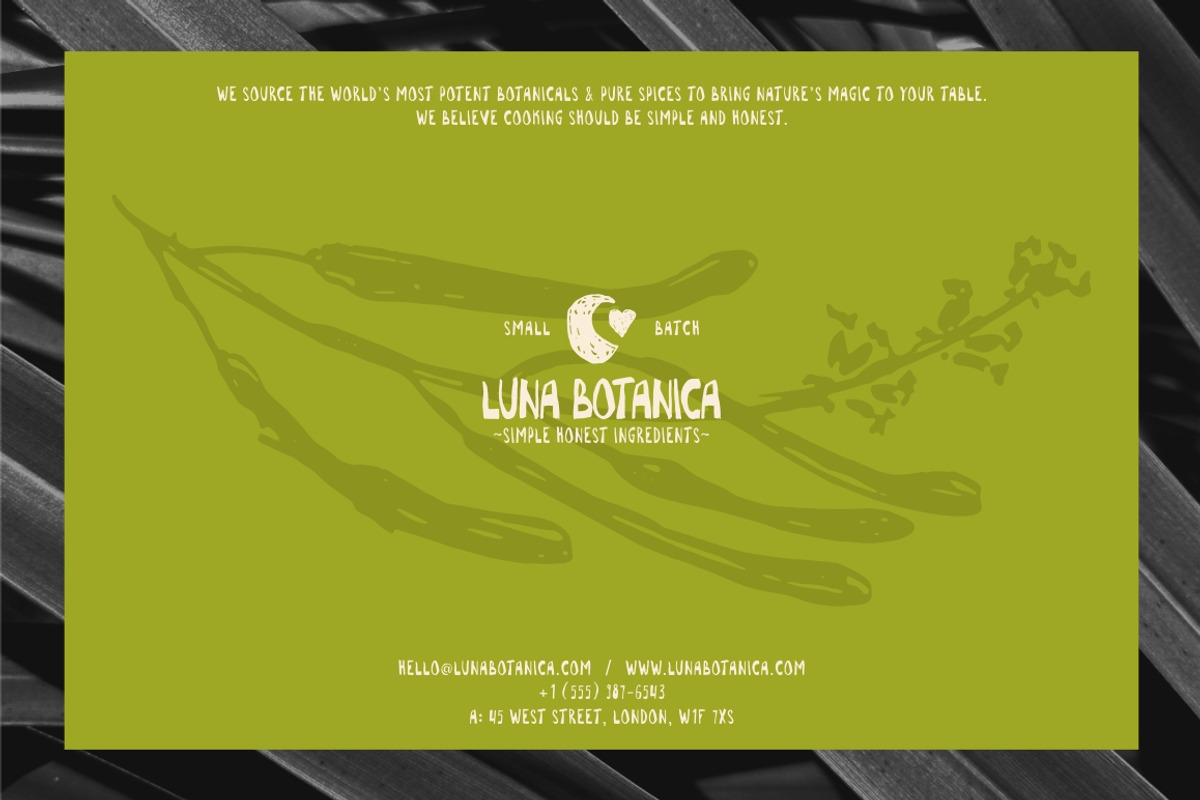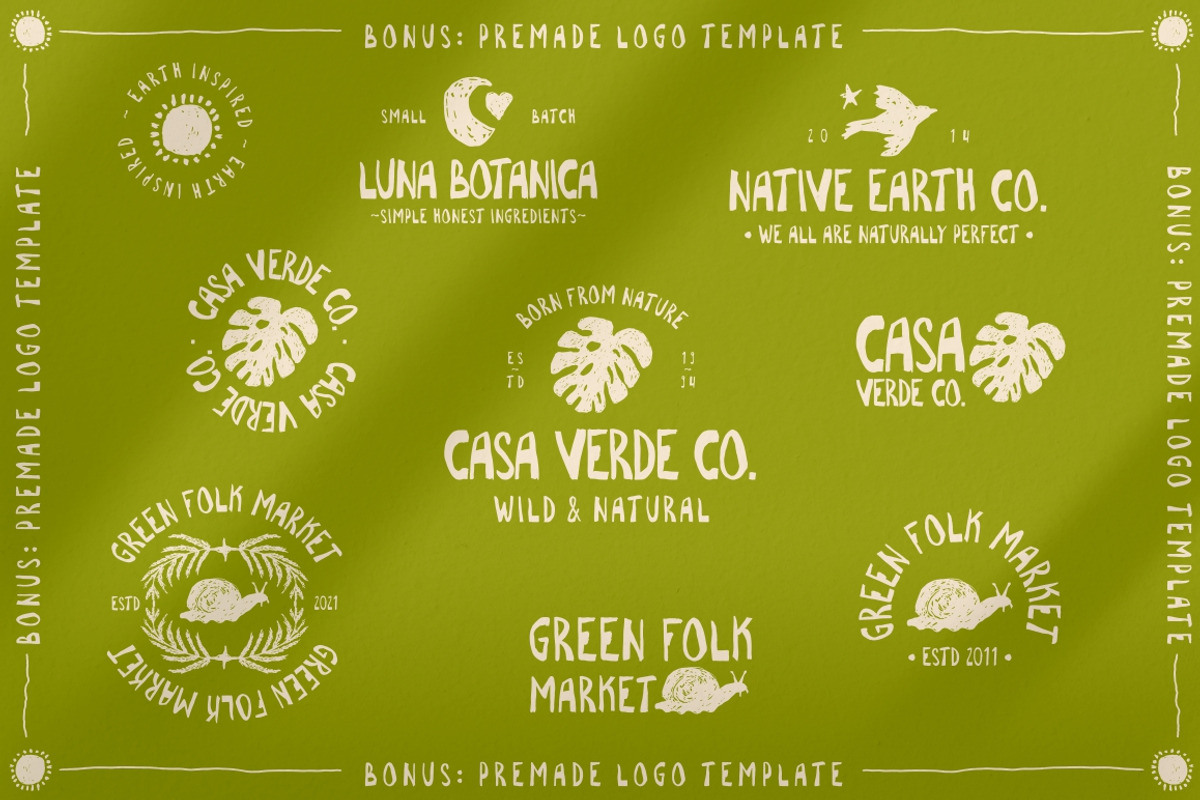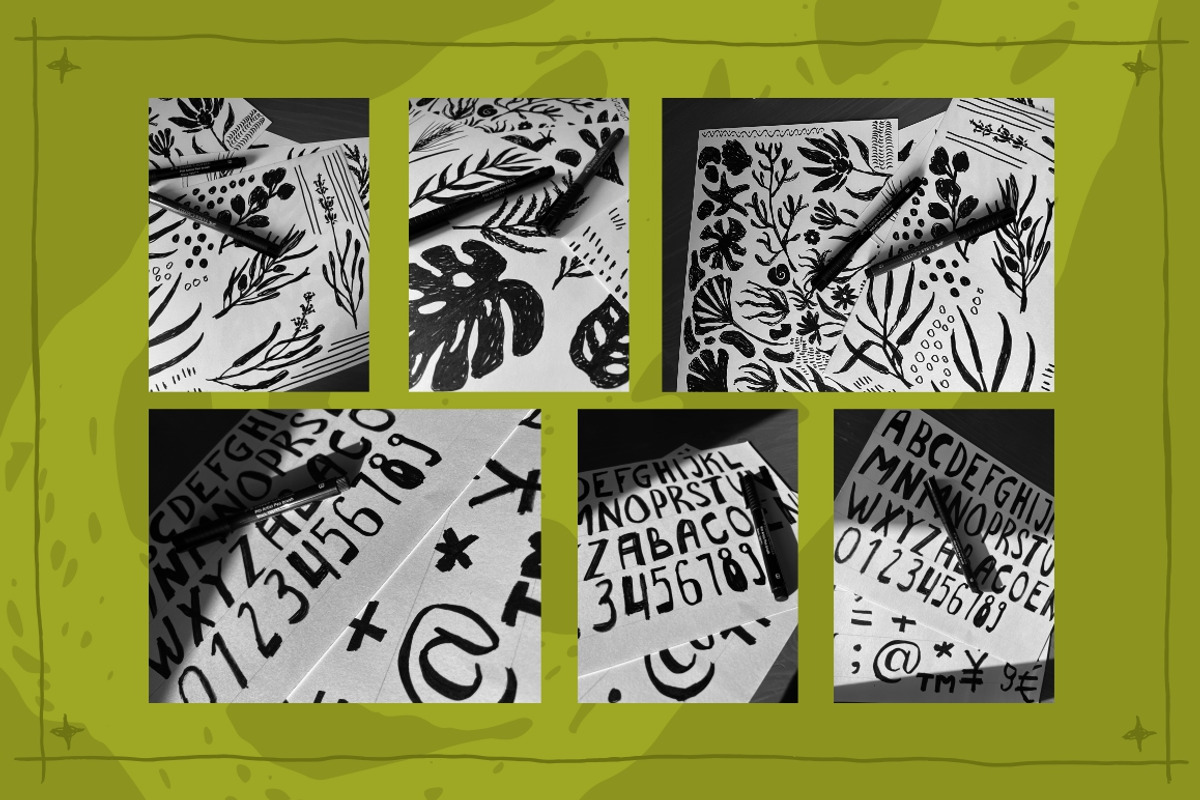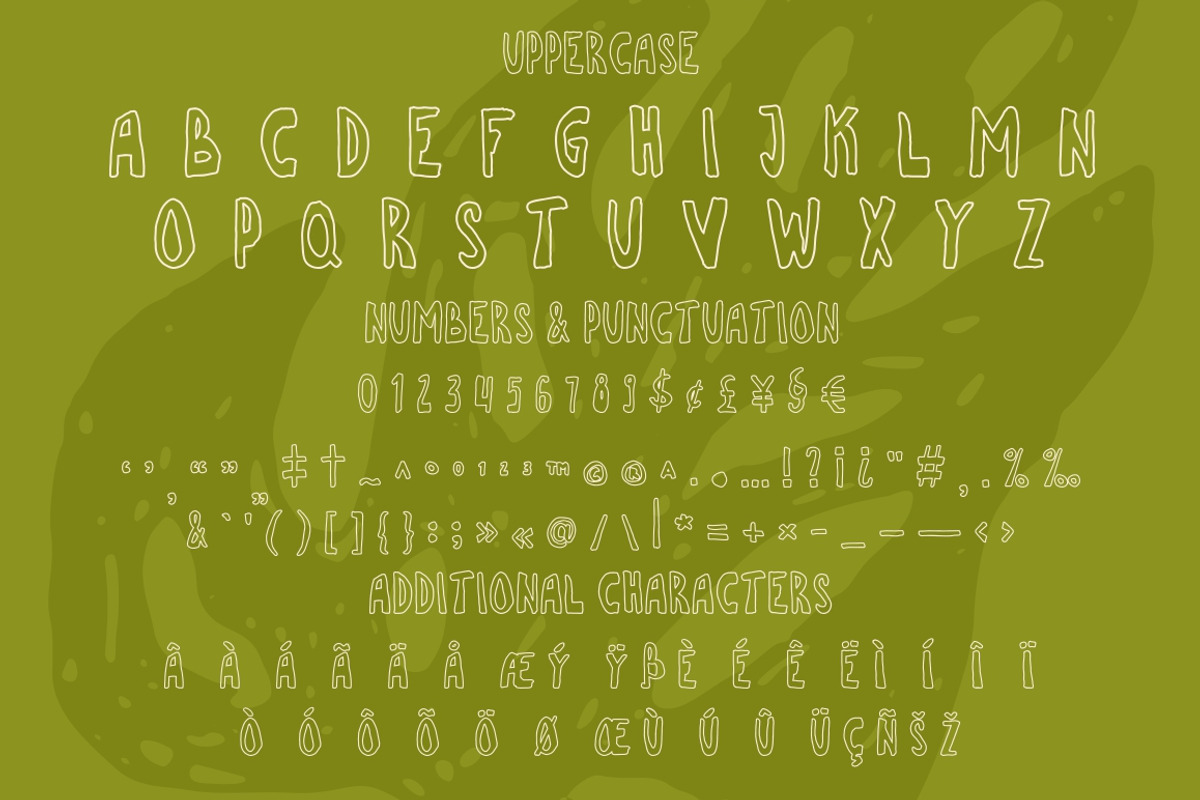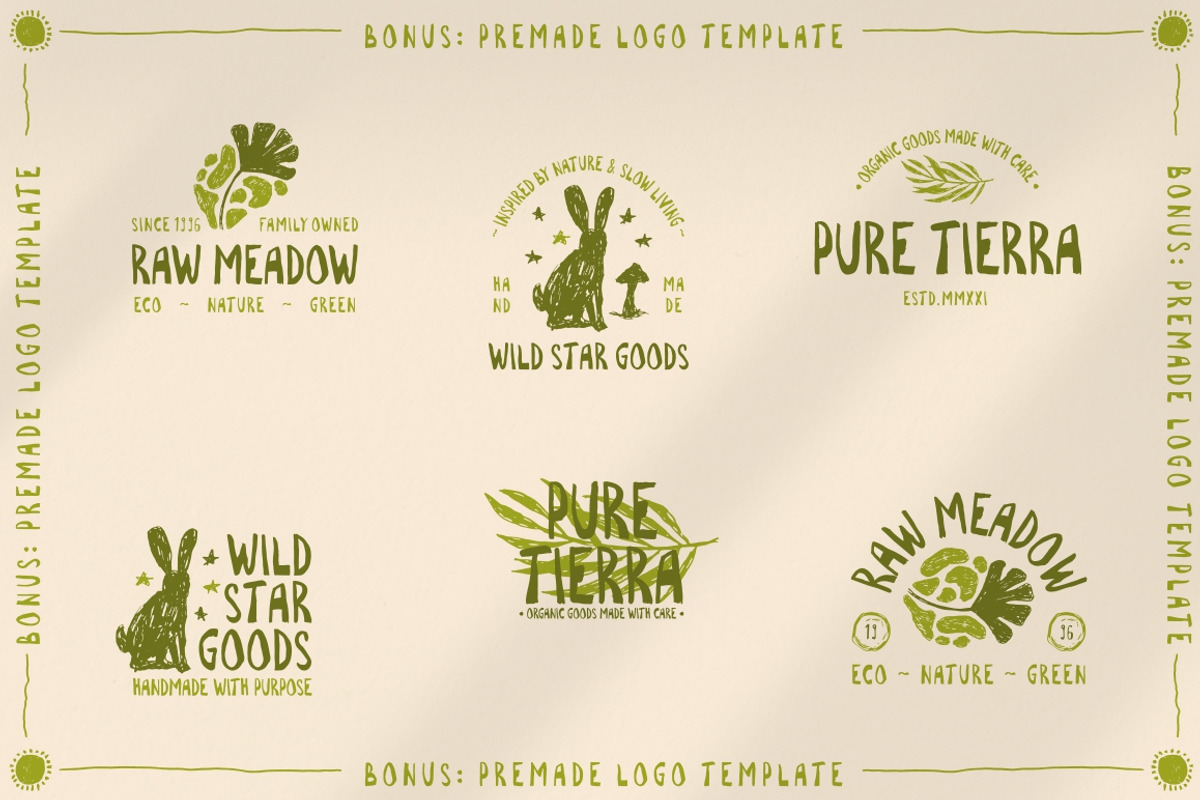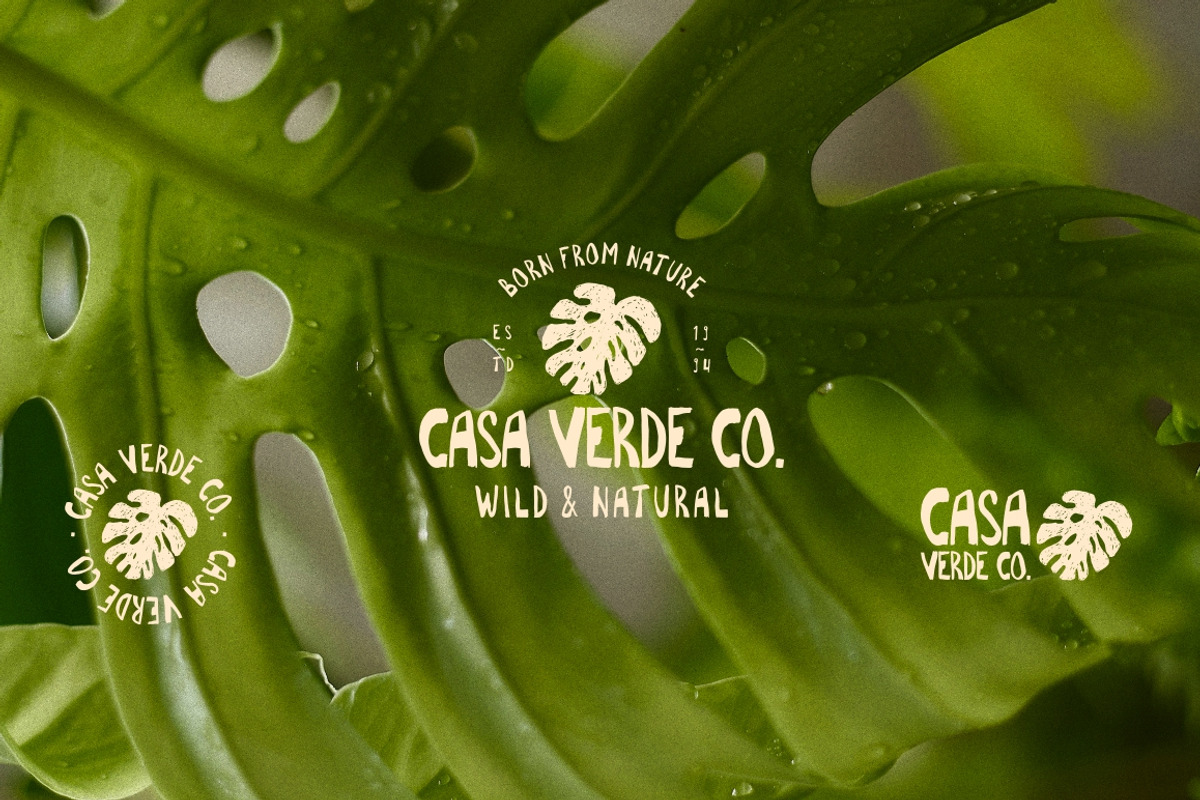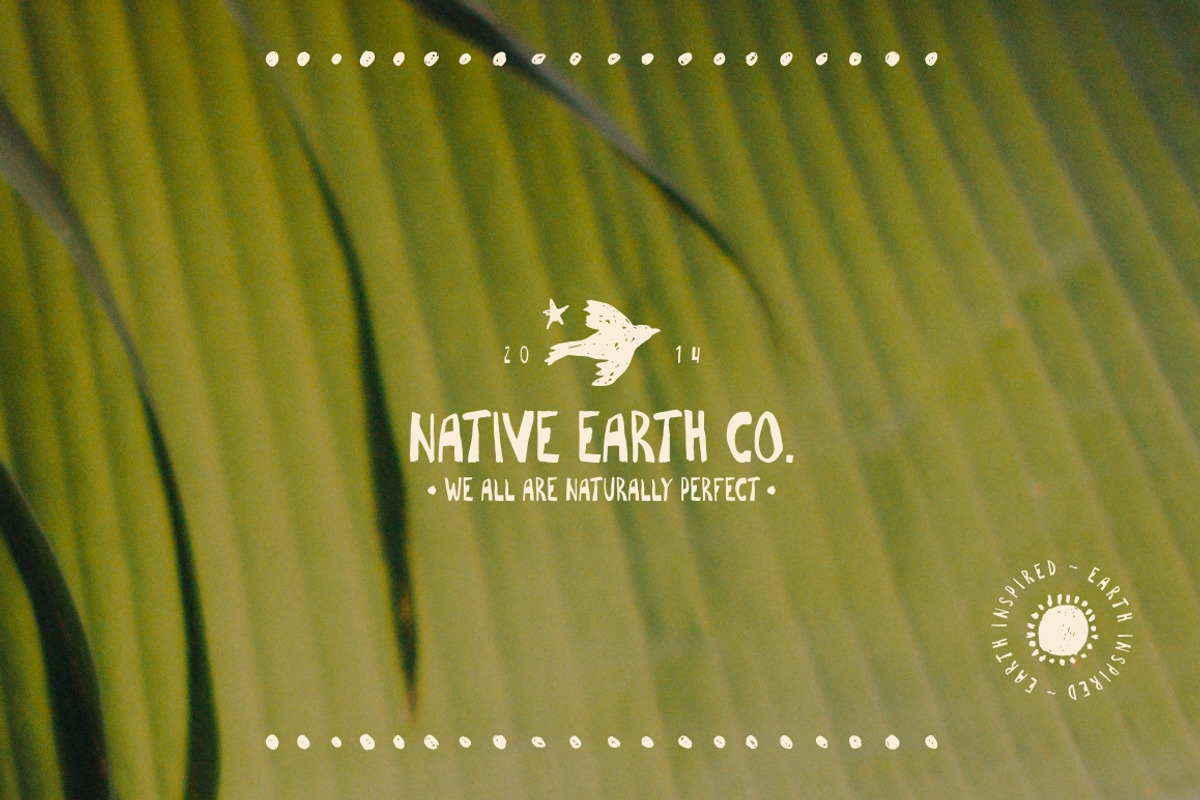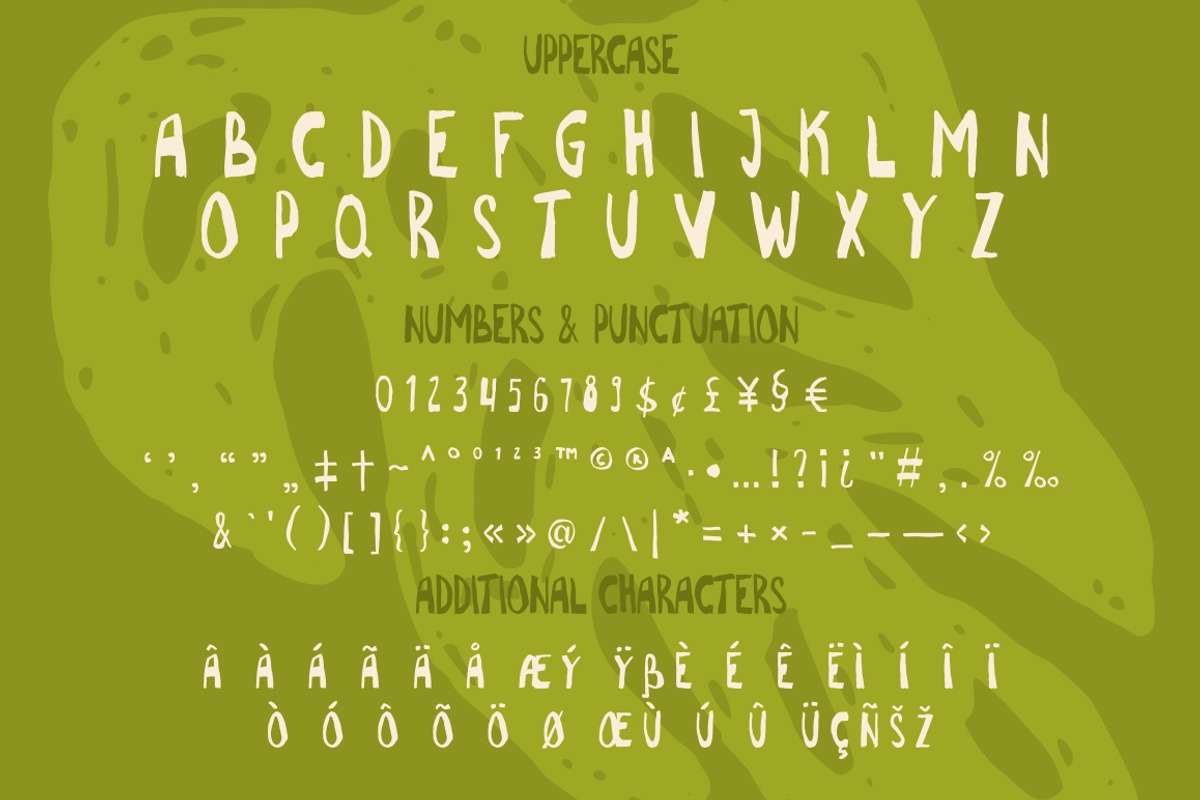
Imperfecto organic & natural font
Imperfecto – Organic & Imperfect Font + Handcrafted Illustrations & Logo Templates Organic, Primitive, Handmade, Imperfect, Linocut, Natural, Rustic, Artisan, Eco, Handcrafted Imperfecto font & premade logo design templates
Imperfecto is a hand-drawn organic typeface inspired by imperfect handmade lettering, linocut aesthetics, and natural textures. This font was created to bring warmth, authenticity, and a crafted feel to your branding projects.
The set includes a full collection of hand-drawn eco-inspired illustrations and ready-to-use logo templates, making it perfect for designers, makers, and small brands looking for a natural, artisanal visual style.
Imperfecto works beautifully for organic brands, eco products, natural cosmetics, food packaging, handmade goods, farmers markets, sustainable businesses, and creative branding projects.
- Organic & eco branding
- Handmade product packaging
- Natural skincare labels
- Farmers market designs
- Coffee & food branding
- Artisan logos
- Vintage inspired projects
- Rustic lifestyle brands